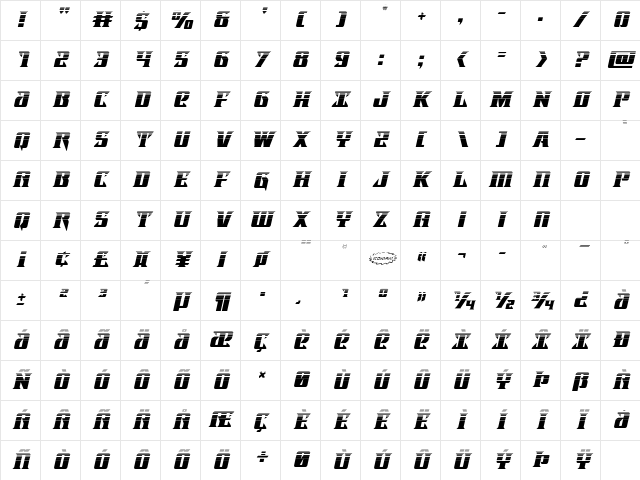
Lifeforce Halftone Italic Italic Free Font
Lifeforce Halftone Italic Italic
Design Context for Lifeforce Halftone Italic
Lifeforce Halftone Italic brings high-energy athletic personality to the page - its confident, muscular forms are built for impact. The slanted form adds forward momentum and visual energy.
Pro Tip: Use Lifeforce Halftone Italic in all-caps headlines where its athletic energy can fully express itself. Pair with a solid, simple sans for supporting text.